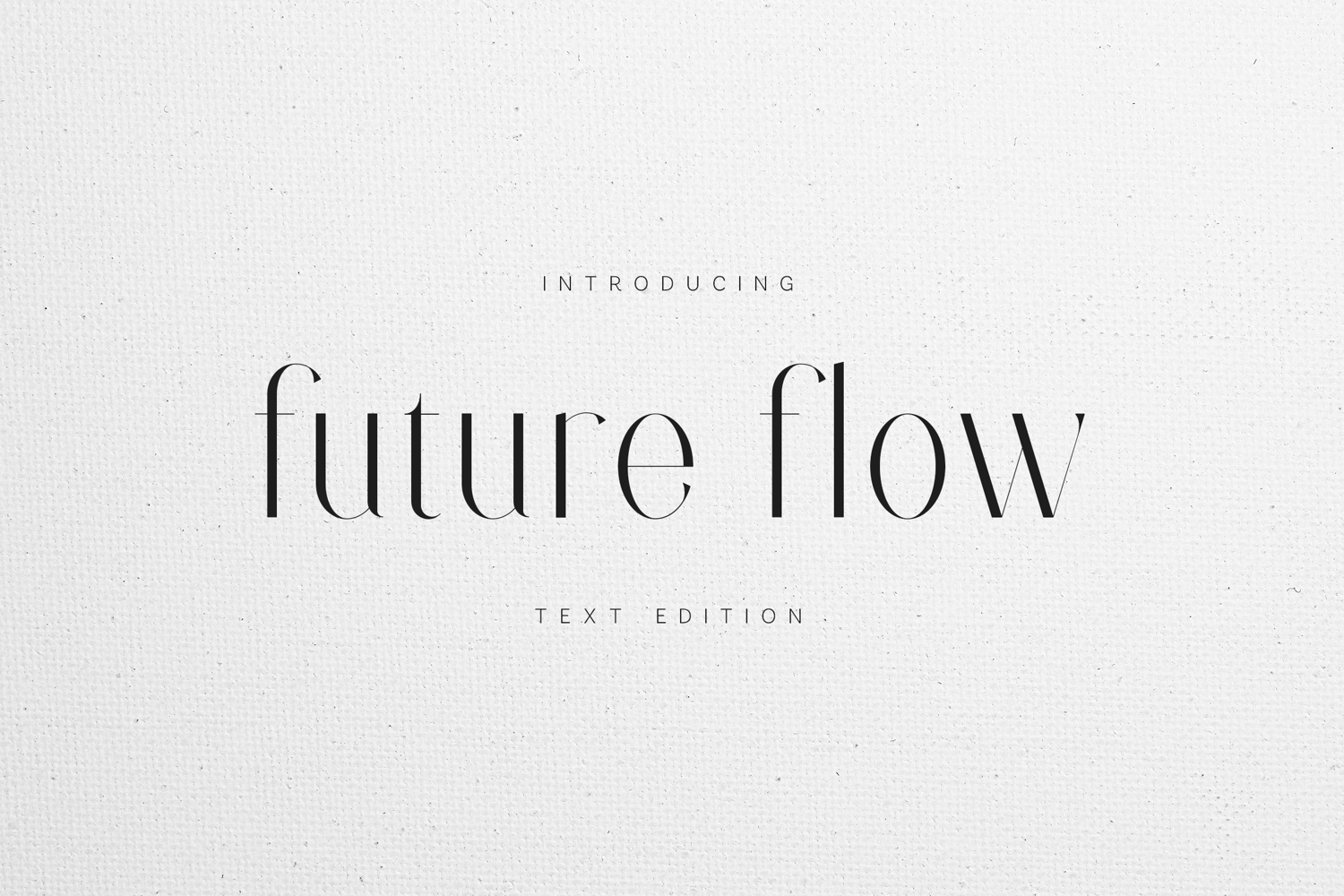
Future Flow Elegant Serif Typeface
Future Flow is a refined modern serif typeface designed for clarity, elegance, and contemporary expression. It blends sharp editorial contrast with soft organic curves, creating a timeless aesthetic that feels both modern and human.
Built for a softer future, Future Flow is ideal for branding, fashion design, magazines, luxury editorials, posters, packaging, and sophisticated visual identities. The typeface performs beautifully in headlines, logos, and longer text settings, offering versatility without losing character.
With extensive multilingual support and carefully crafted details, Future Flow turns typography into atmosphere — where noise becomes form and silence finds structure.
Modern serif design
Elegant proportions
High contrast strokes
Uppercase characters
Lowercase characters
Numerals included
Punctuation included
Accented characters
Multilingual support
Branding friendly
Editorial focused
Luxury aesthetic